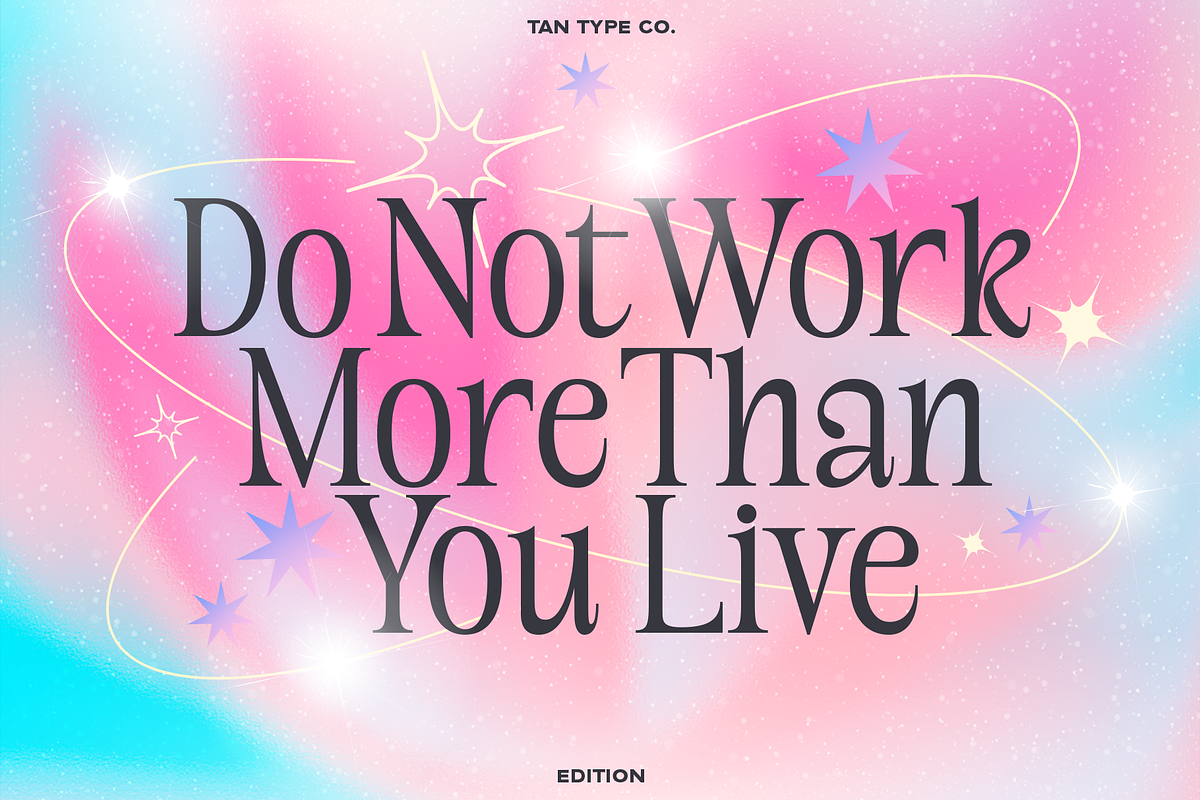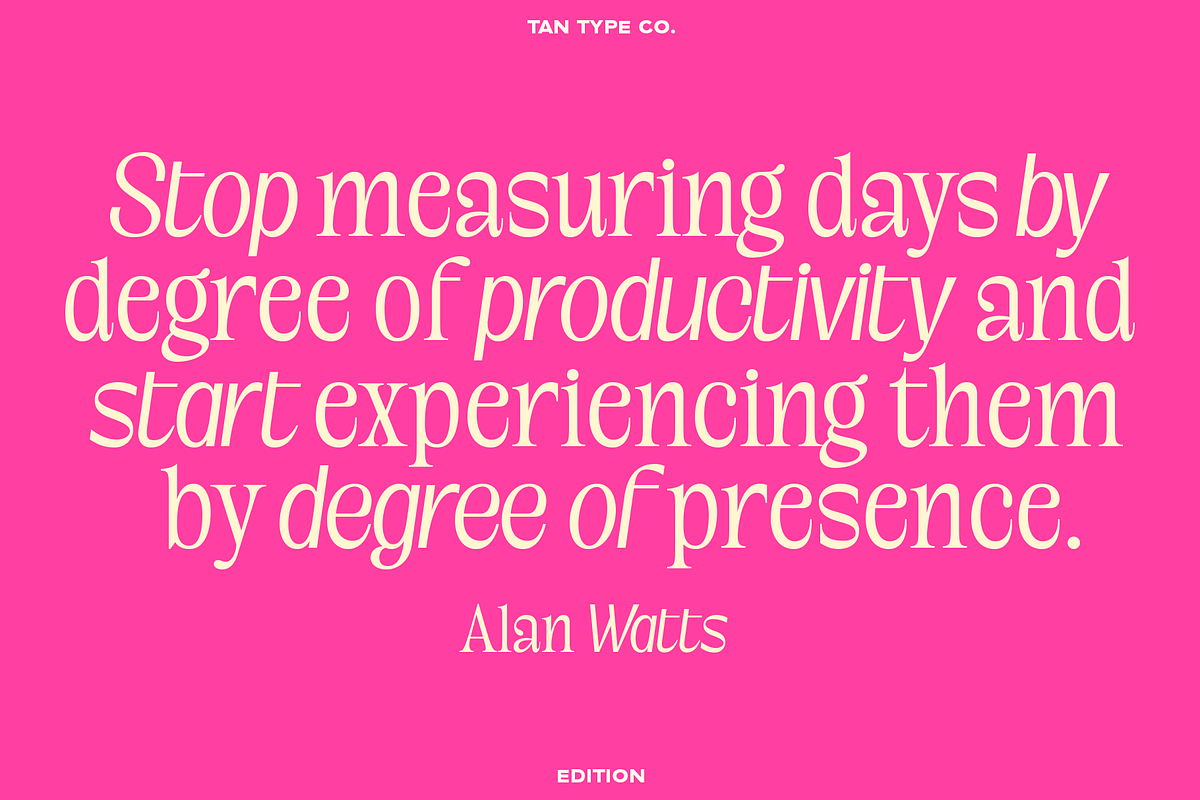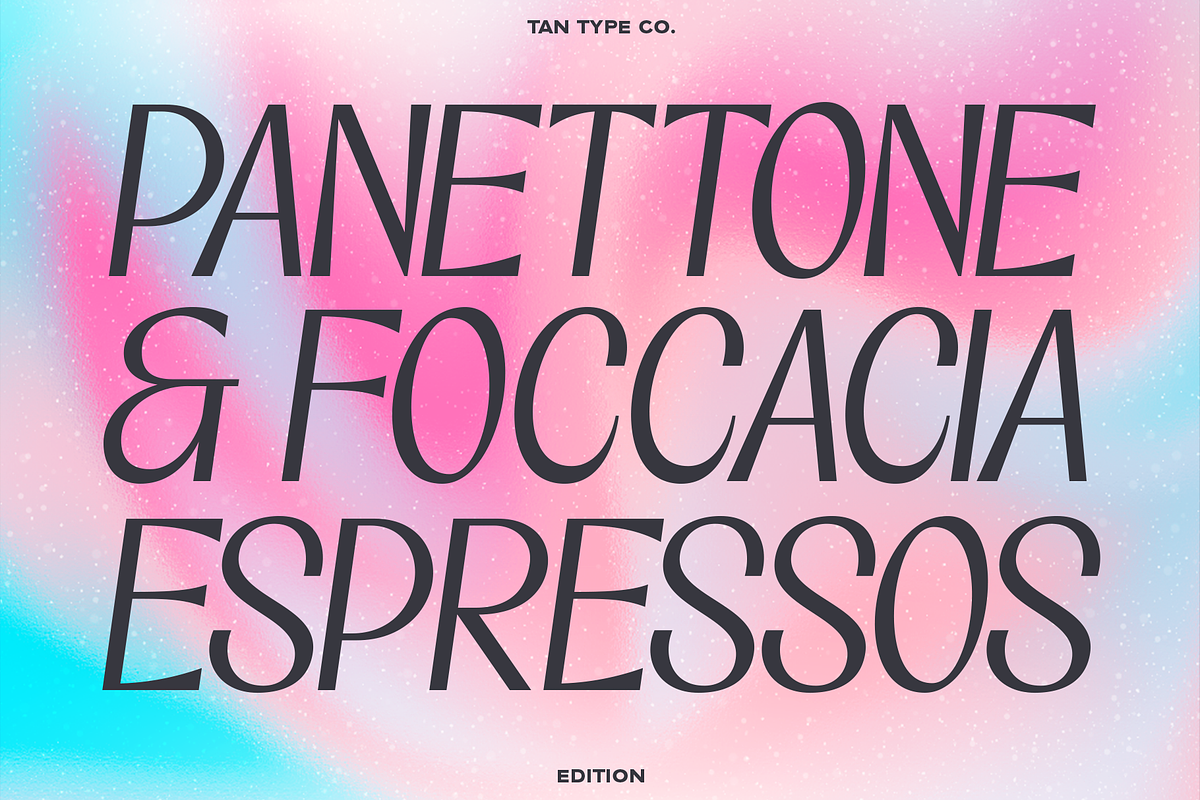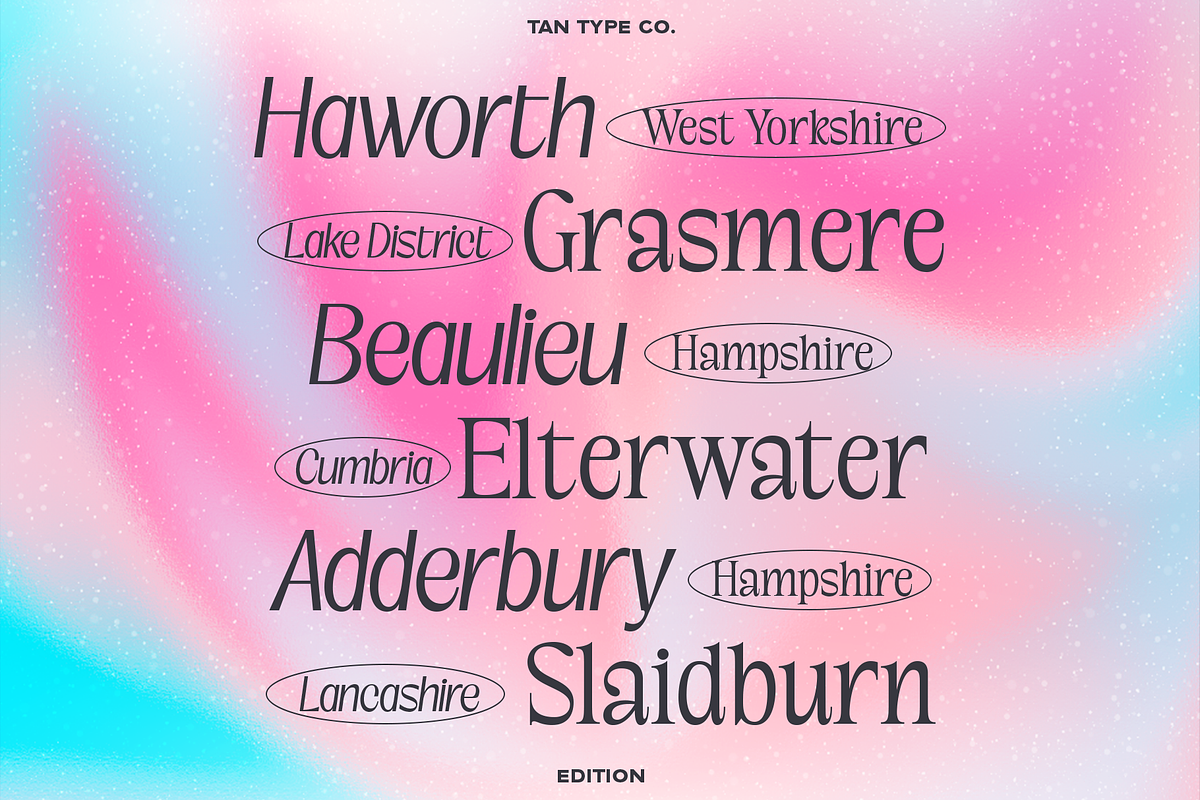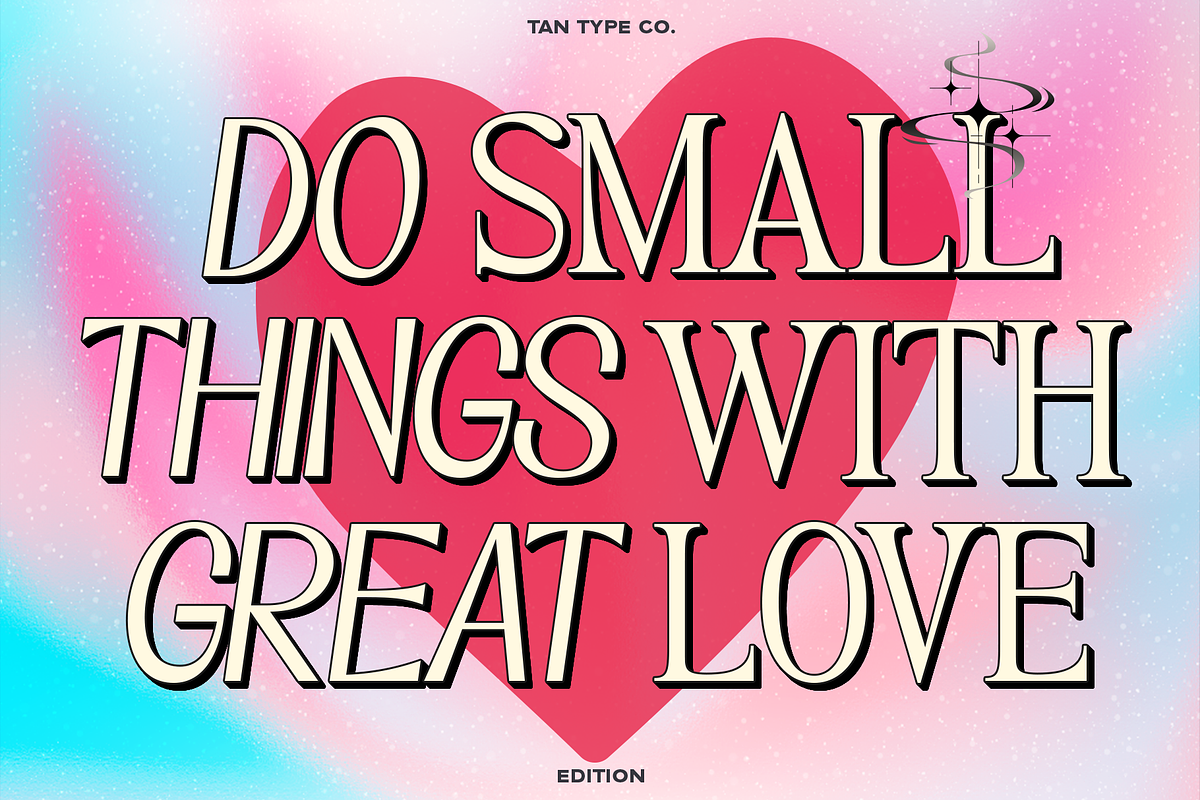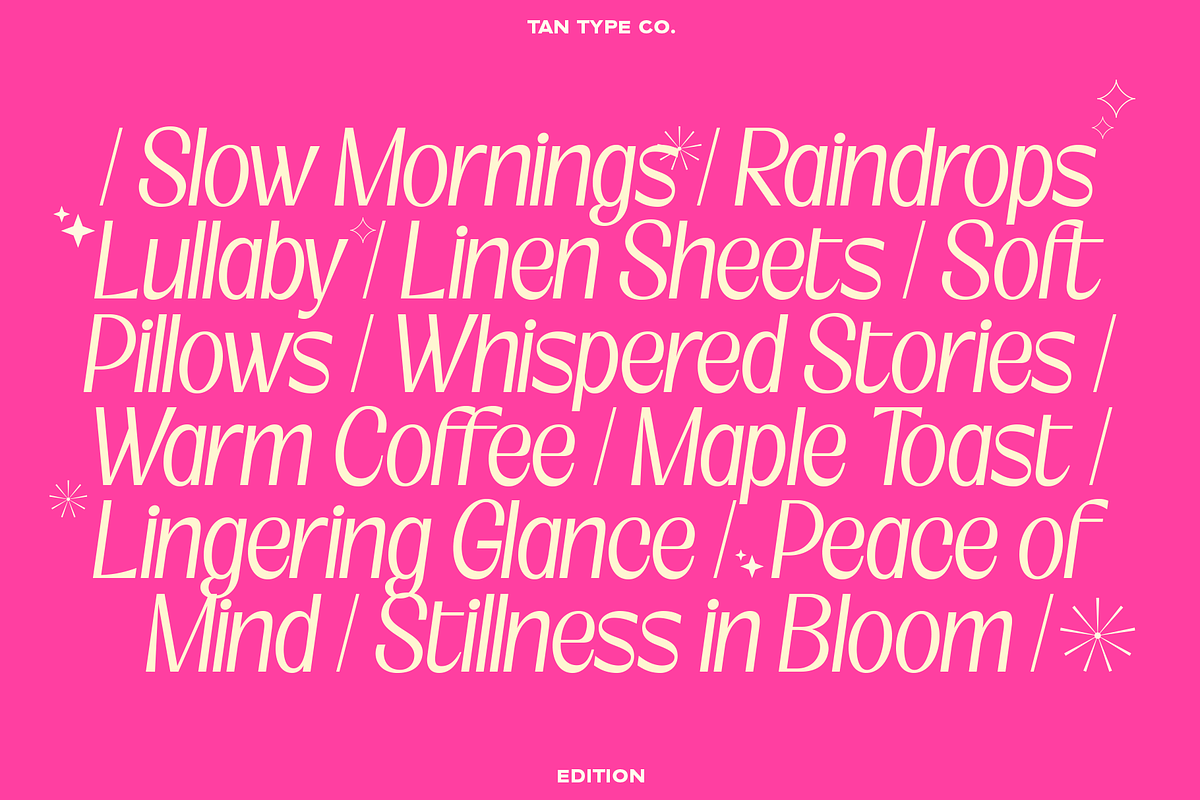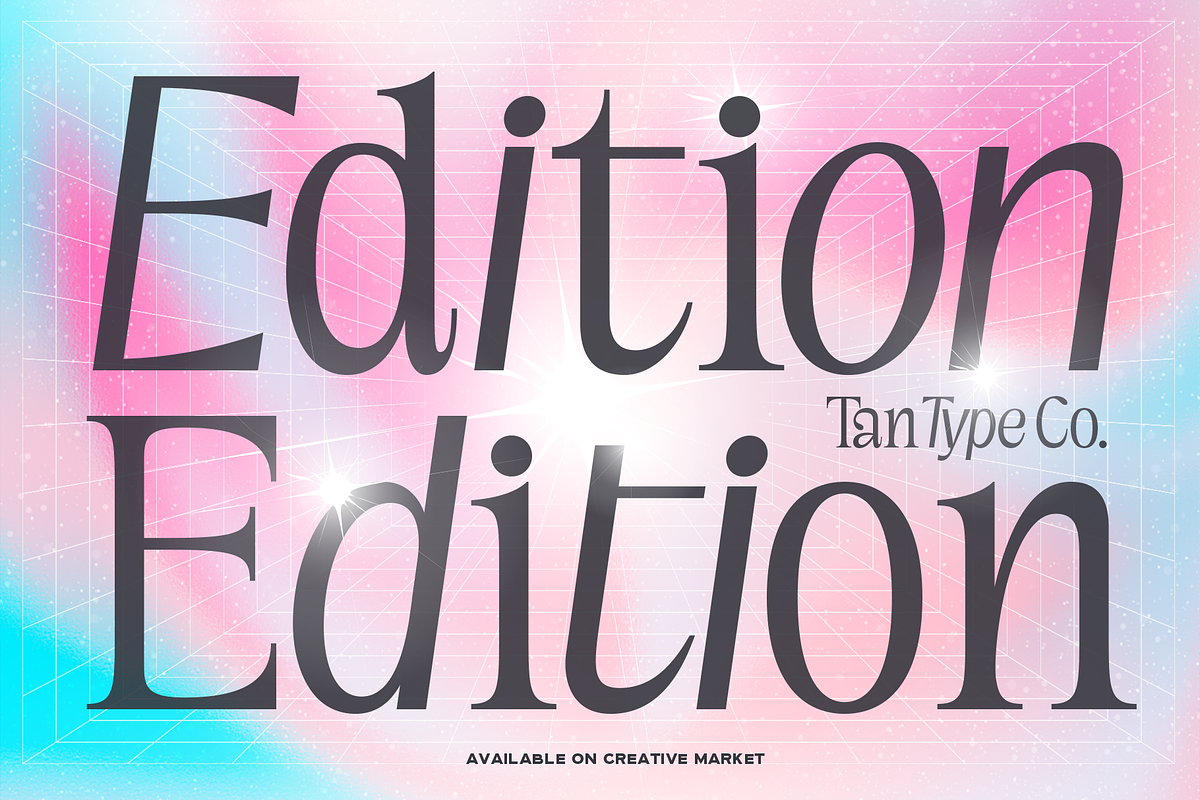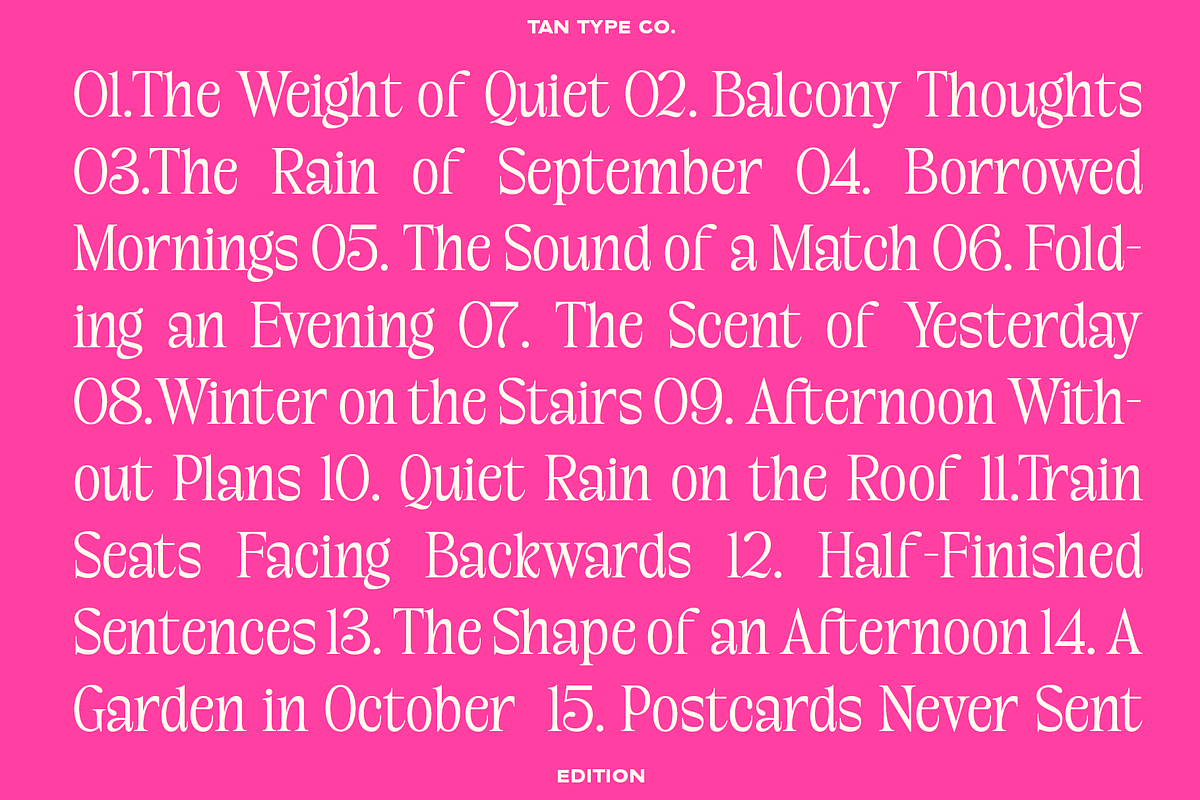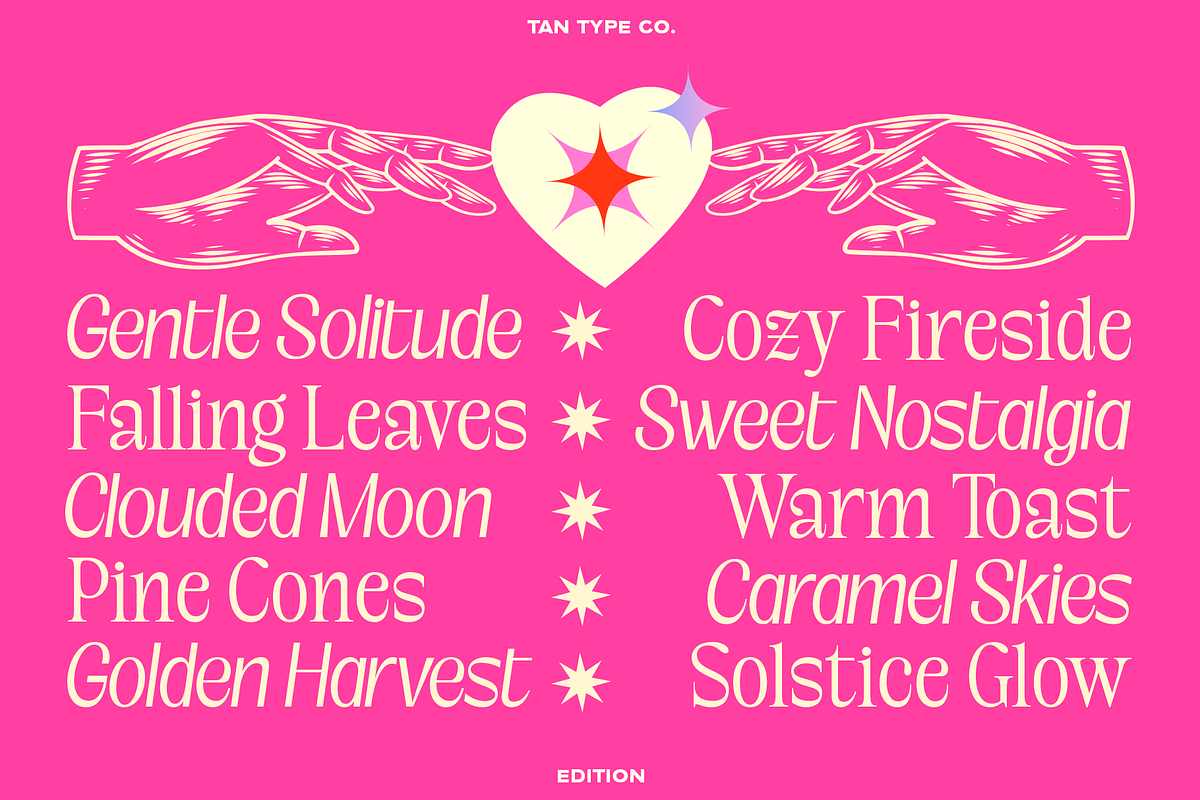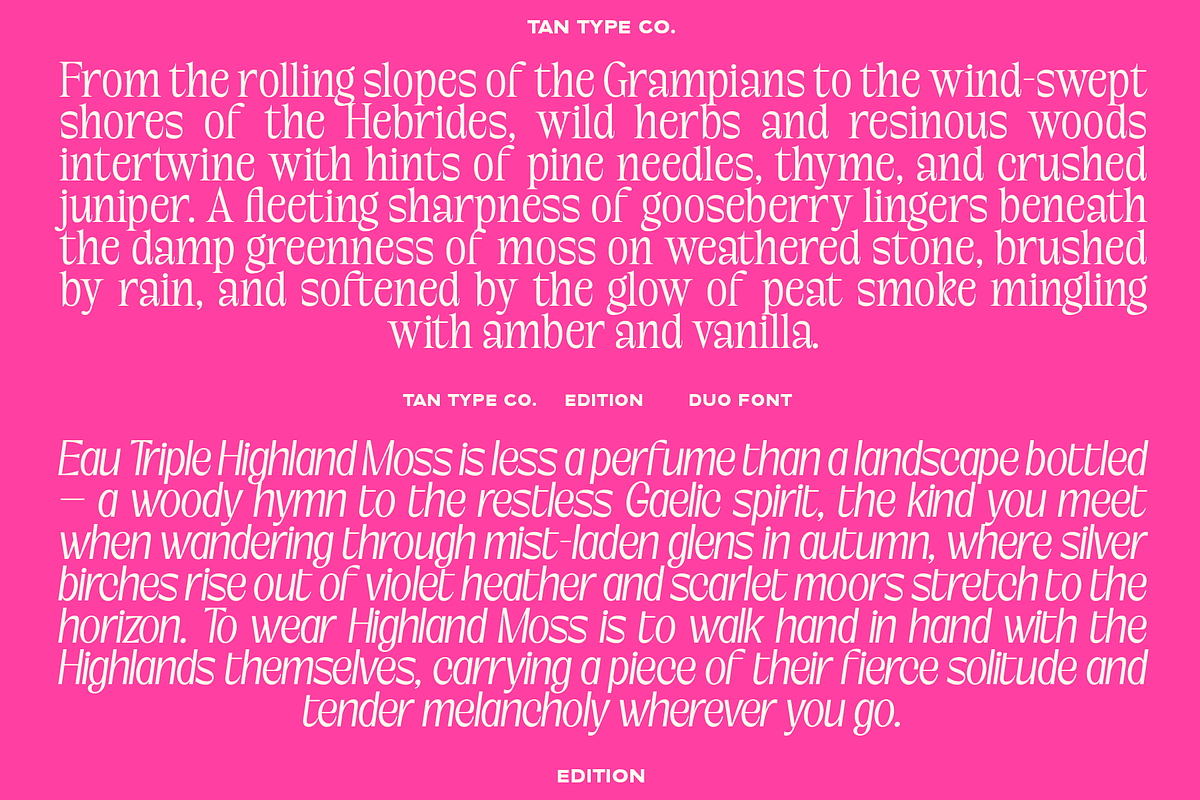
TAN-EDITION
TAN-Edition is a modern sans serif typeface defined by its sleek lines and refined simplicity. Designed for clarity and balance, it brings a contemporary elegance to both digital and print design.
It has a clean look without feeling rigid—perfect if you want something professional but still full of personality. Each character is crafted for easy readability, making Edition a comfortable choice for headlines, branding, UI design, posters, product packaging, and more. Its modern feel is subtle and understated, allowing it to blend effortlessly with a wide range of visual styles without overpowering the design.